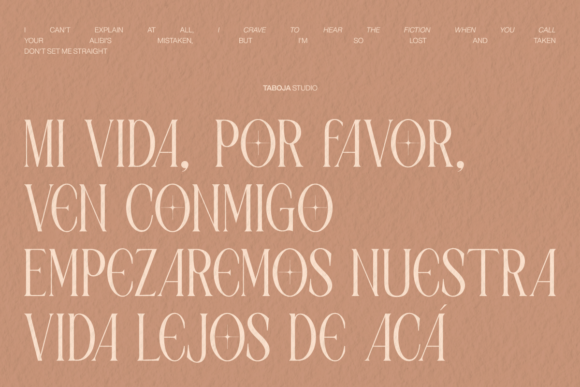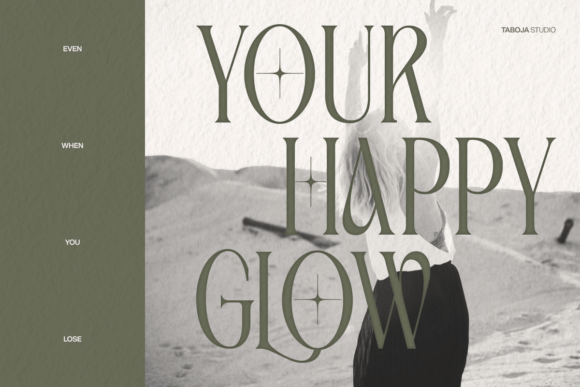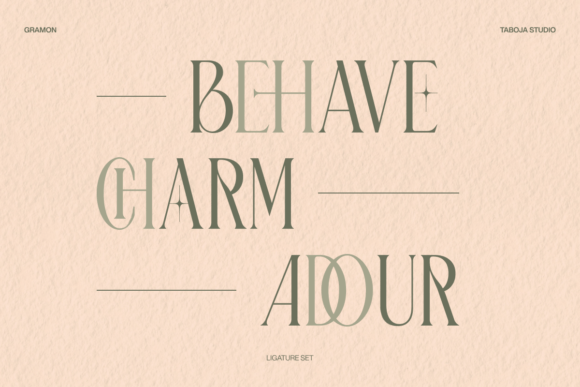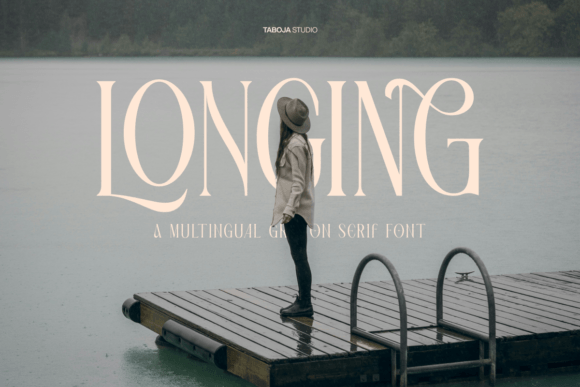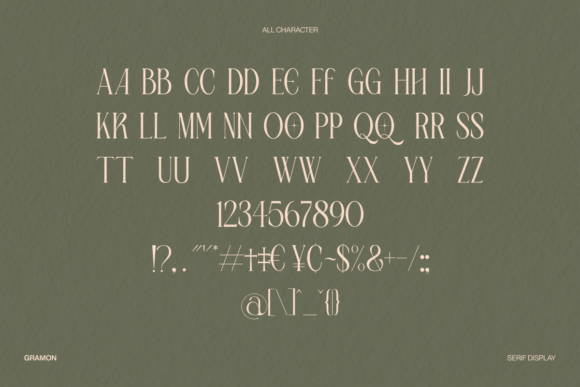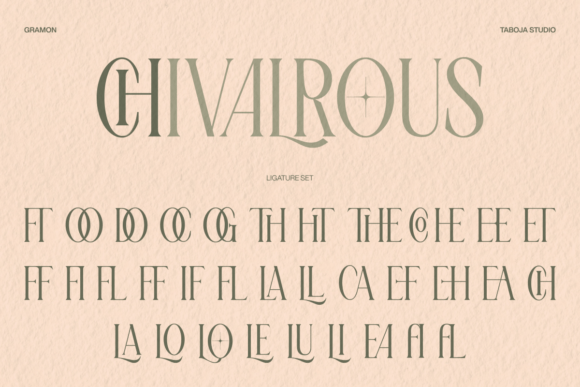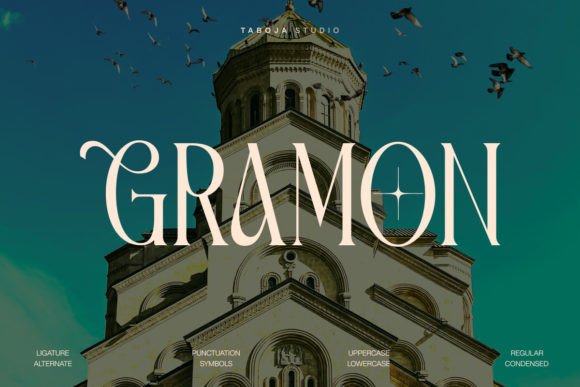
Introducing Gramon Font: Elevate Your Designs with Style and Elegance
In the world of typography, a font can make or break a design. For designers and crafters looking for a modern and sophisticated touch, Gramon Font is here to revolutionize your creative projects. This stunning condensed font is meticulously crafted to blend style and elegance in every detail, making it the perfect addition to your typography arsenal.
The Art of Gramon Font
Gramon Font is designed to convey a sense of luxury and refinement. Its sleek and elegant letterforms feature harmonious proportions that exude a contemporary feel. Each character is carefully crafted to provide a balanced and refined look, making it ideal for a wide range of design applications. Whether you’re working on a branding project, packaging design, or digital media, Gramon Font is sure to elevate your designs to new heights.
Key Features of Gramon Font
- Condensed Design: Gramon Font features a sleek and condensed design that allows for maximum impact in a compact format. Perfect for headlines, titles, and short paragraphs, this font is designed to grab attention and convey a sense of sophistication.
- Elegant Letterforms: Each letterform in Gramon Font is meticulously crafted to provide a harmonious and refined look. The elegant curves and lines create a sense of fluidity and movement, making this font perfect for designs that require a touch of luxury.
- Modern and Sophisticated: Gramon Font is designed to convey a sense of modernity and sophistication. Its clean lines, balanced proportions, and elegant curves make it perfect for designers looking for a font that exudes style and refinement.
- Versatile and Adaptable: Gramon Font is versatile and adaptable, making it suitable for a wide range of design applications. From branding and packaging to digital media and advertising, this font can be used in various contexts to add a touch of elegance and sophistication.
Why Choose Gramon Font?
With so many fonts available, why choose Gramon Font for your design projects? Here are just a few reasons why Gramon Font stands out from the crowd:
- Unique and Distinctive: Gramon Font is a unique and distinctive font that will set your designs apart from the competition. Its elegant letterforms and condensed design make it a standout in any design project.
- High-Quality Design: Gramon Font is designed with high-quality and attention to detail in mind. Each character is meticulously crafted to provide a refined and sophisticated look that will elevate your designs.
- Easy to Read: Despite its condensed design, Gramon Font is easy to read and understand. This makes it perfect for designs that require a clear and concise message, such as headlines, titles, and short paragraphs.
How to Use Gramon Font in Your Designs
Gramon Font is easy to use and can be incorporated into your designs in a variety of ways. Here are a few tips to get you started:
- Headlines and Titles: Use Gramon Font for headlines and titles to add a touch of elegance and sophistication to your designs.
- Branding and Packaging: Gramon Font is perfect for branding and packaging designs that require a modern and refined look.
- Digital Media: Use Gramon Font in digital media such as social media graphics, website headers, and email marketing campaigns to add a touch of style and elegance.